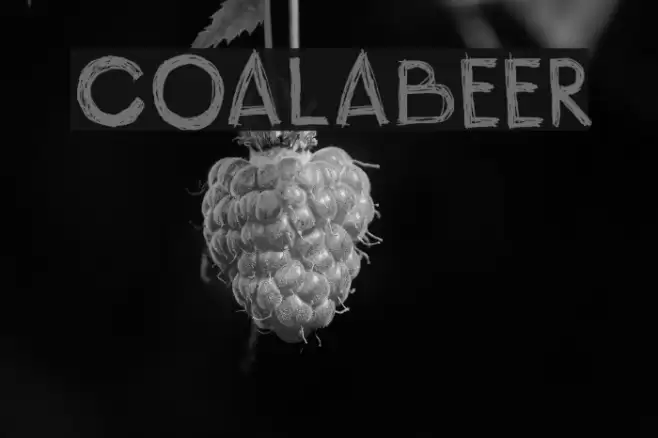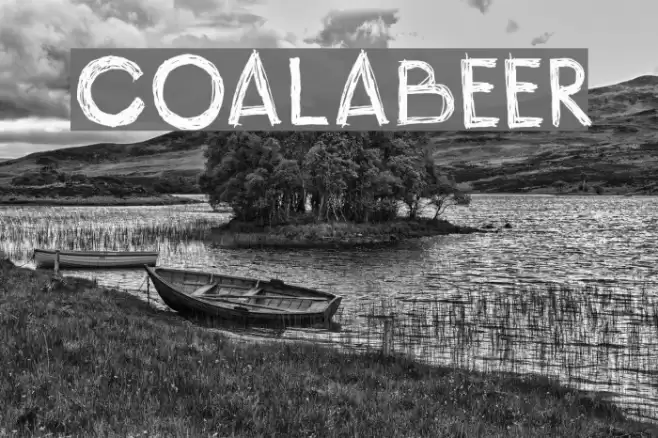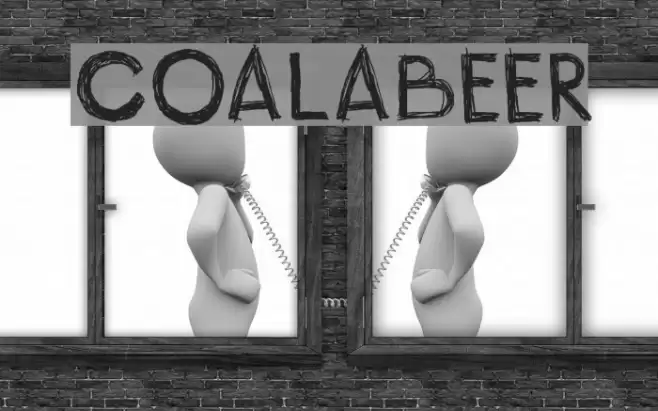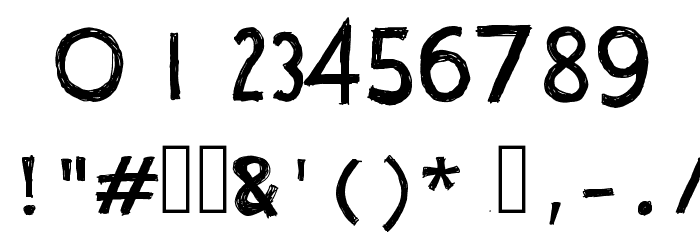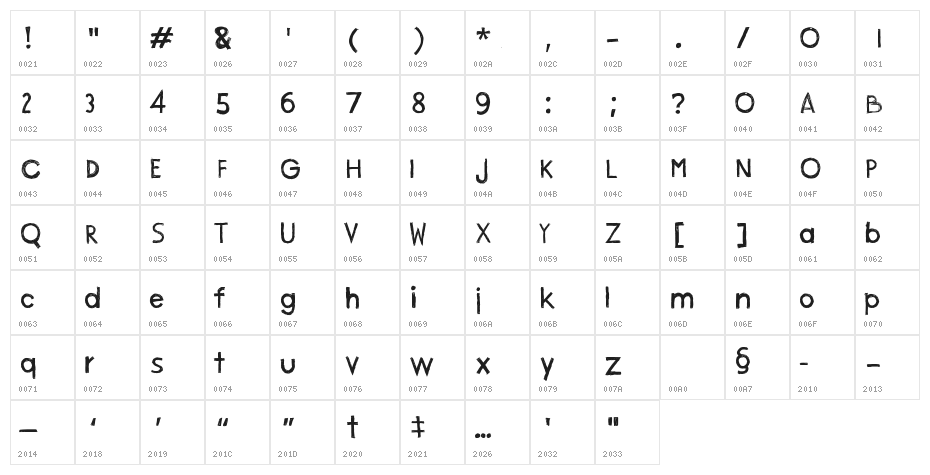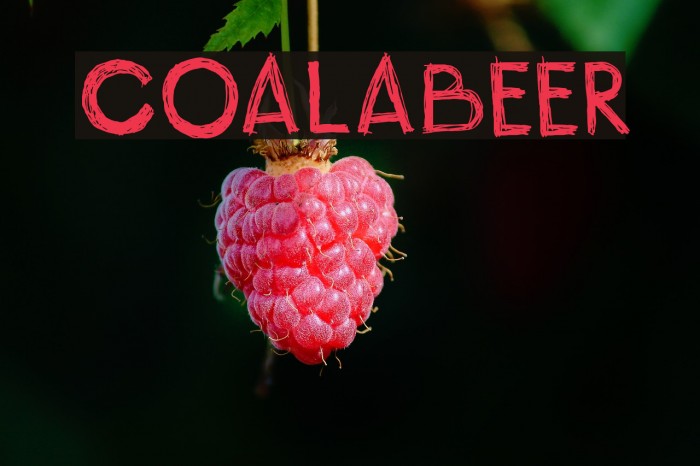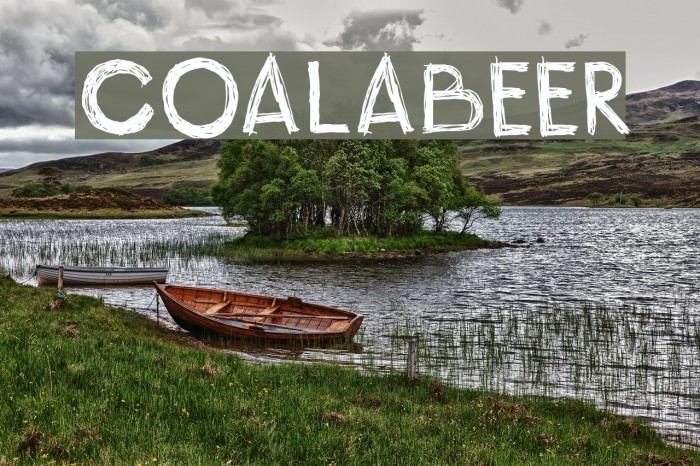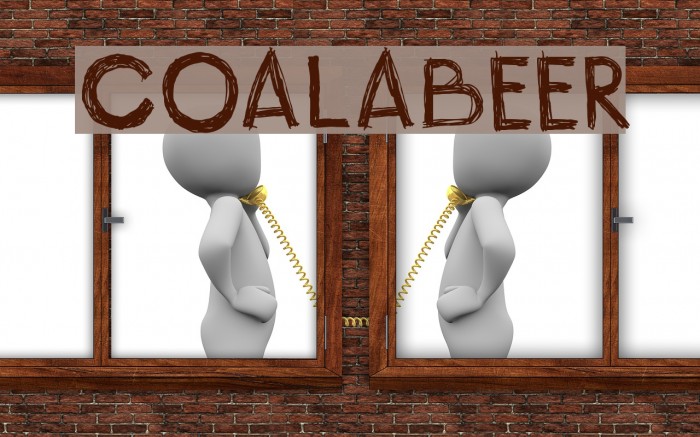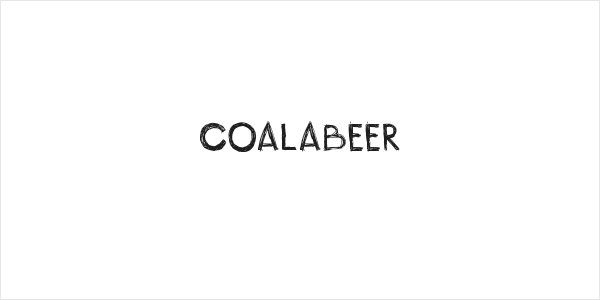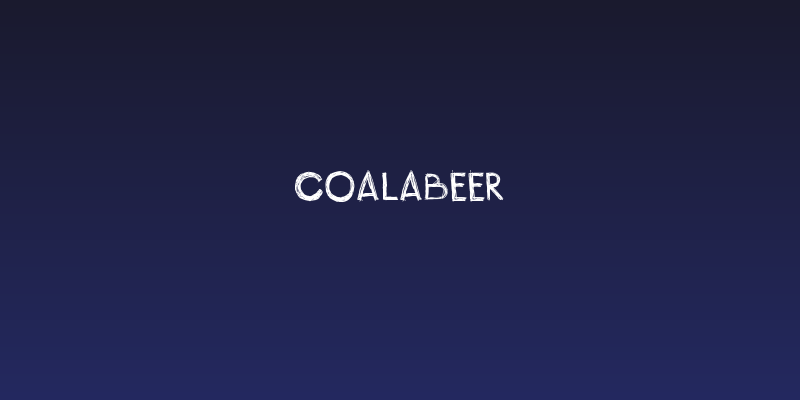
COALABEER Font
COALABEER Description
This font features a rugged, hand-drawn style with uneven strokes and a textured appearance, giving it a raw and organic feel. The characters are bold and slightly irregular, with a playful yet edgy aesthetic. The uppercase and lowercase letters maintain a consistent style, while the numbers and special characters complement the overall look. The font's unique character is suitable for projects that require a touch of creativity and individuality.
A rugged, hand-drawn font with bold, textured strokes from Uncategorized fonts.
- Proposed Projects: Ideal for posters, album covers, artistic projects, and branding that seeks a handmade or edgy look.